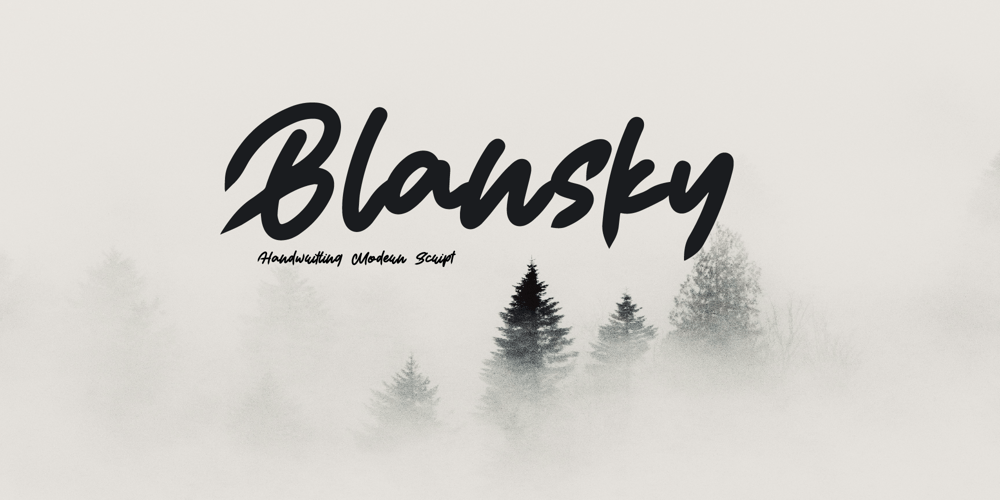
Blansky Font Family was designed by ryan creative and published by ryan creative. Blansky contains 1 styles and family package options. Blansky has a sharp, elegant stroke, with typography that looks like handwriting. The bold strokes appear to be produced by fluid and skillful hand movements, giving the font an artistic, handmade feel. Medium to large typography sizes will display stroke details clearly. This letter font is perfect for designs that require a personal and organic touch.Blansky is supported with additional characters that have alternative shapes and strokes that will help you achieve beautiful styles with your own creations.FEATURE ;-Uppercase, Lowercase, Foreign Support, Numbers and Punctuation-Alternative, Ligature-Works on PC-Simple installation-Can be accessed in Adobe Illustrator, Adobe Photoshop. Adobe InDesign, even works in Microsoft Word – Completely accessible without additional design software.Blansky is encoded with Unicode PUA, which allows full access to all additional characters without having to design special software. Mac users can use the Font book, and Windows users can use the Character map to view and copy any additional characters to paste into your favorite text editor/app.Thank you for visiting ๐